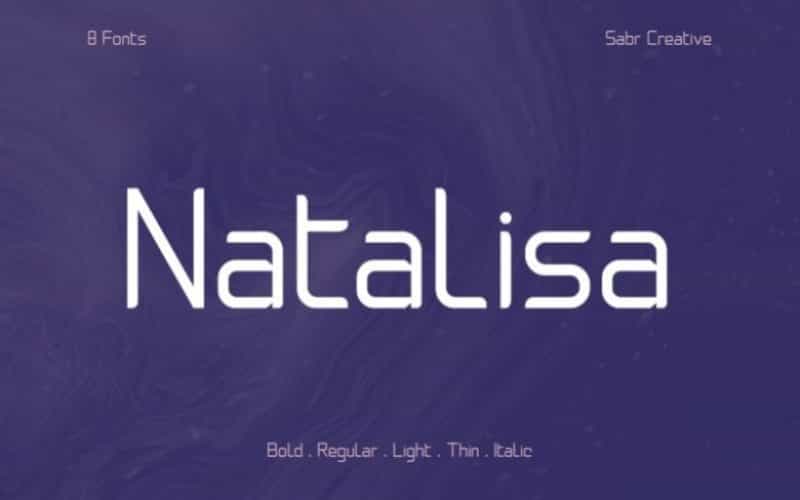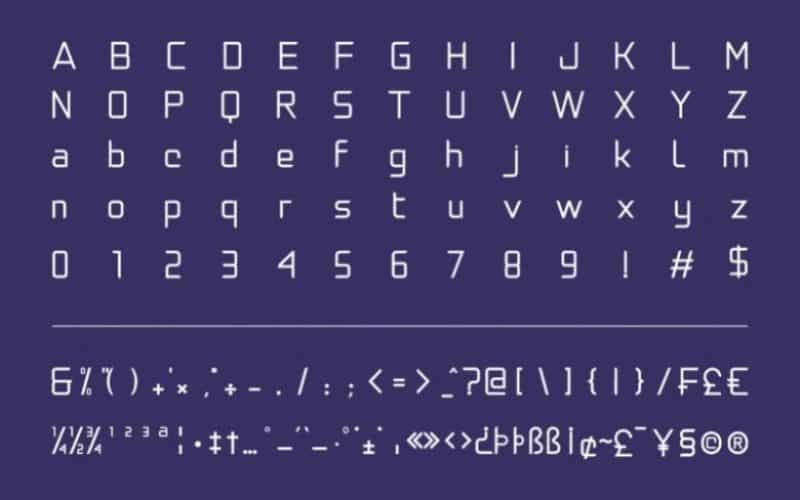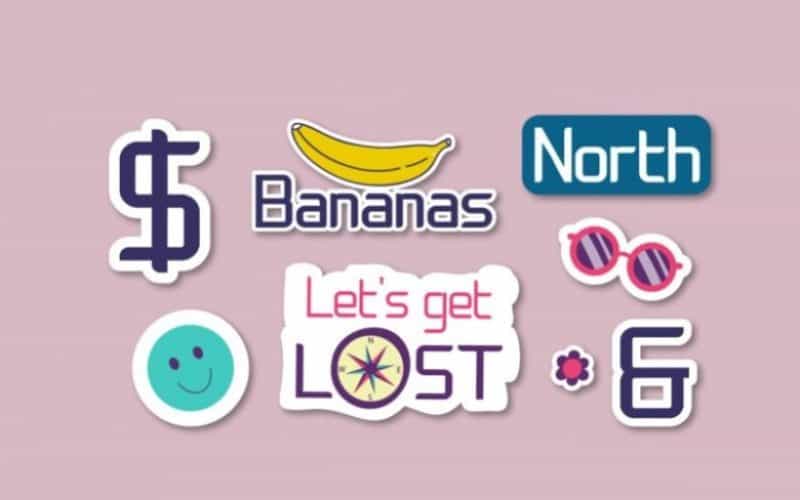
Natalisa font family is a futuristic style with some modifications, the letters are slightly bigger and there are no rounded serifs which makes it look softer but at the same time keeps its solidity. Natalisais the perfect fit for many design projects that are looking to express a futuristic, clean and simple feeling.